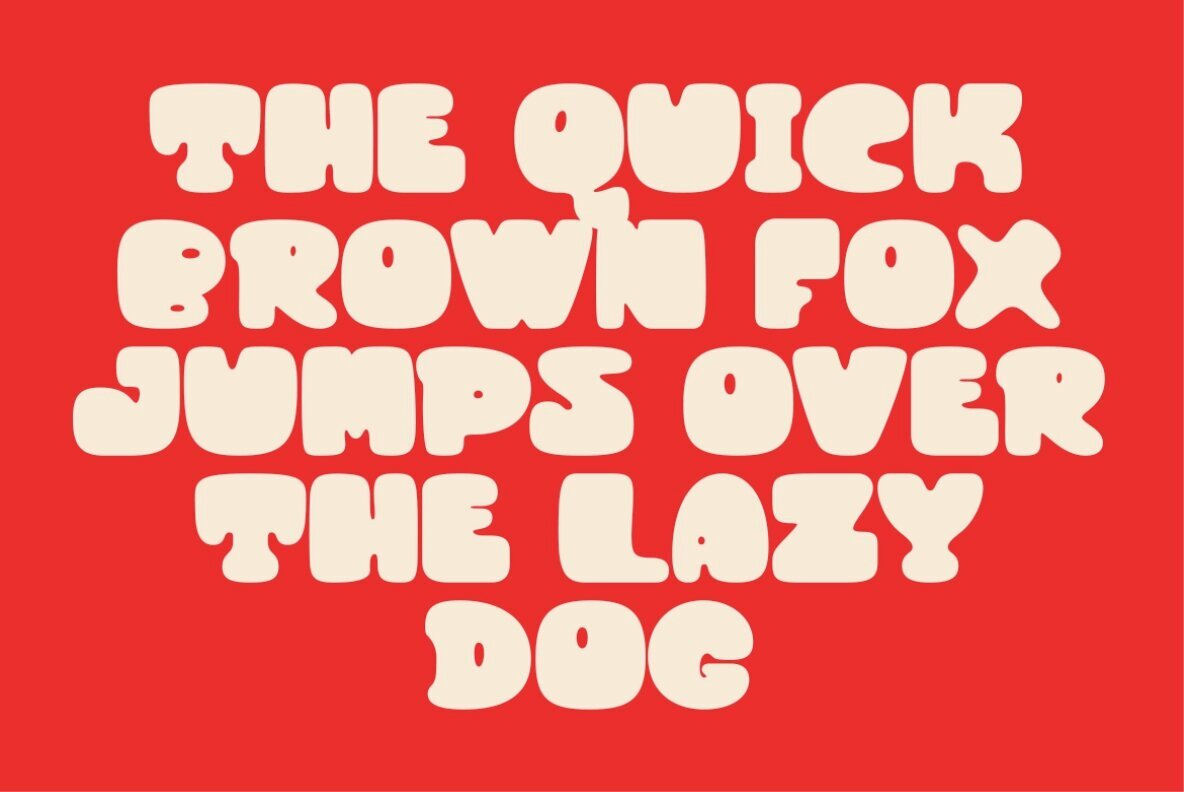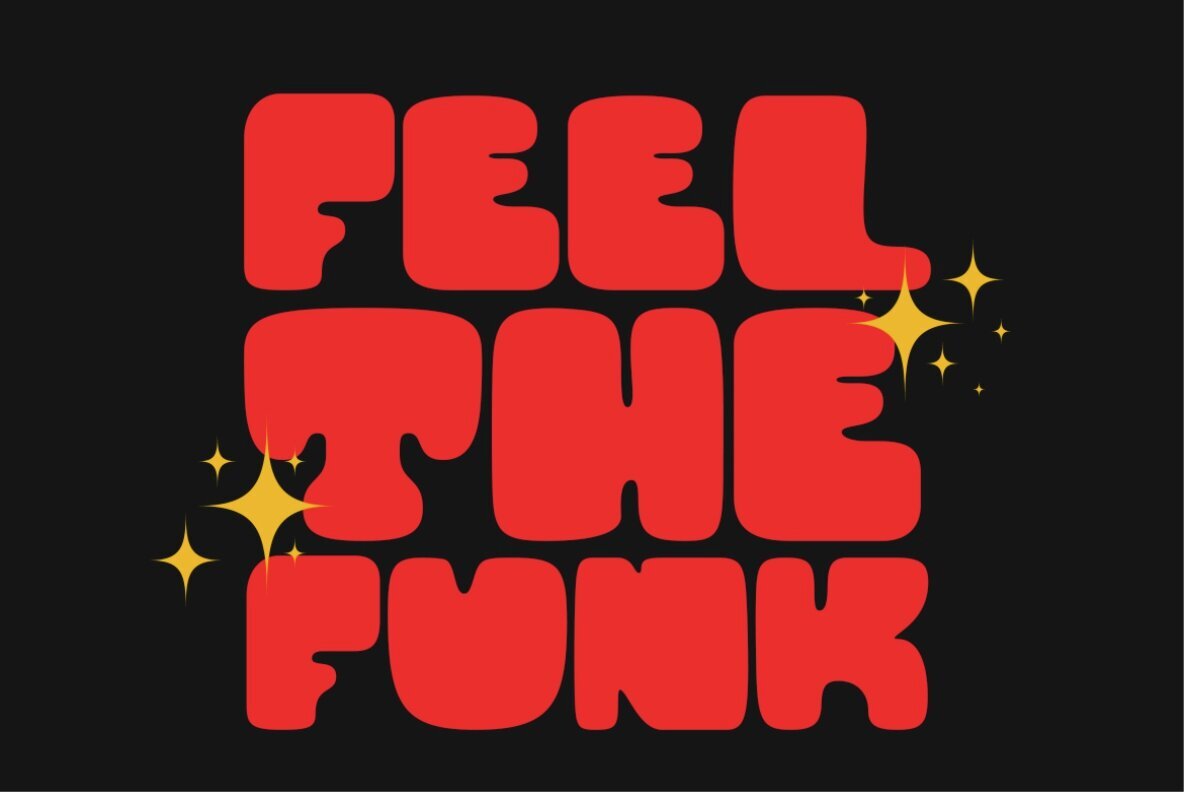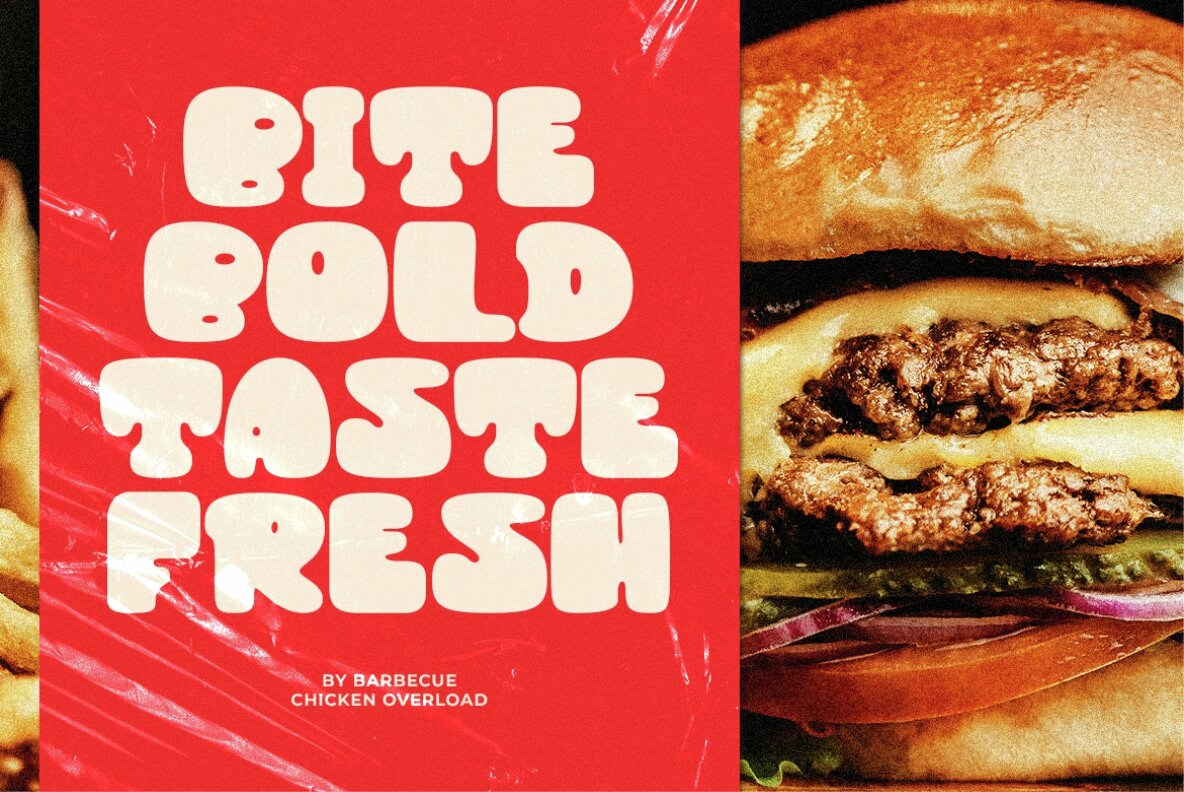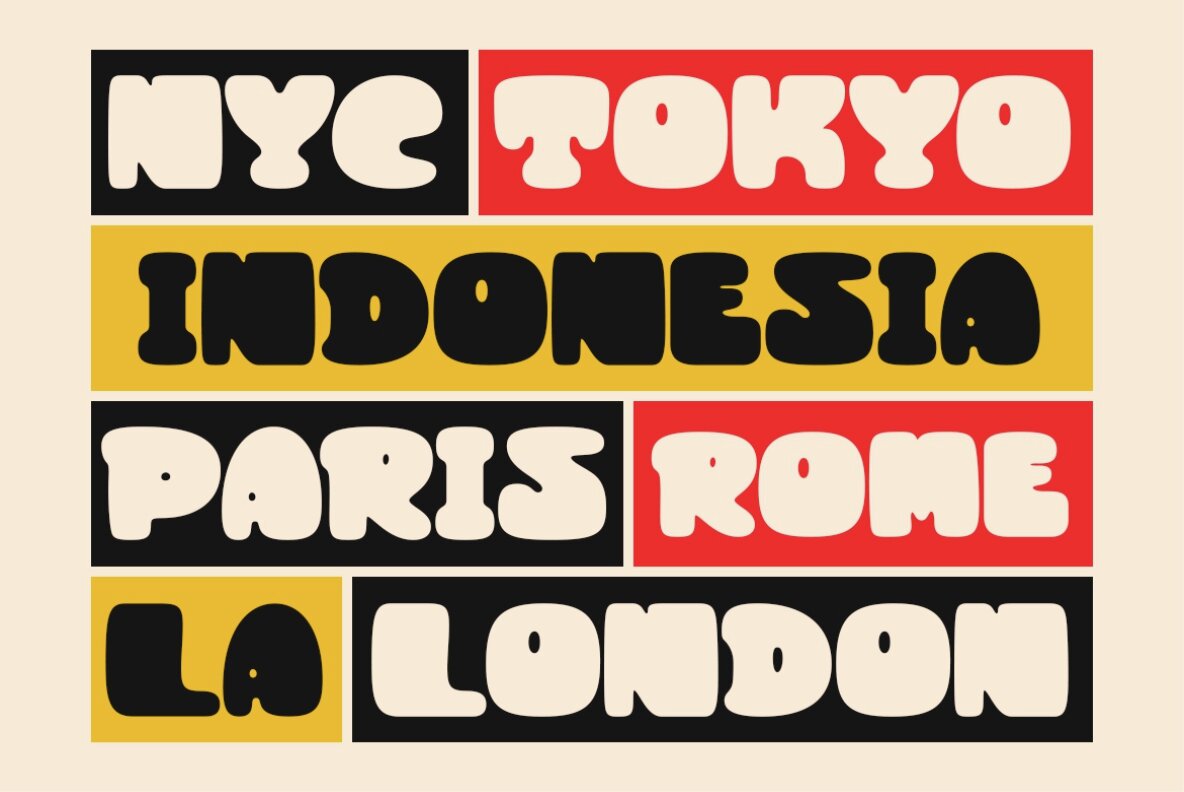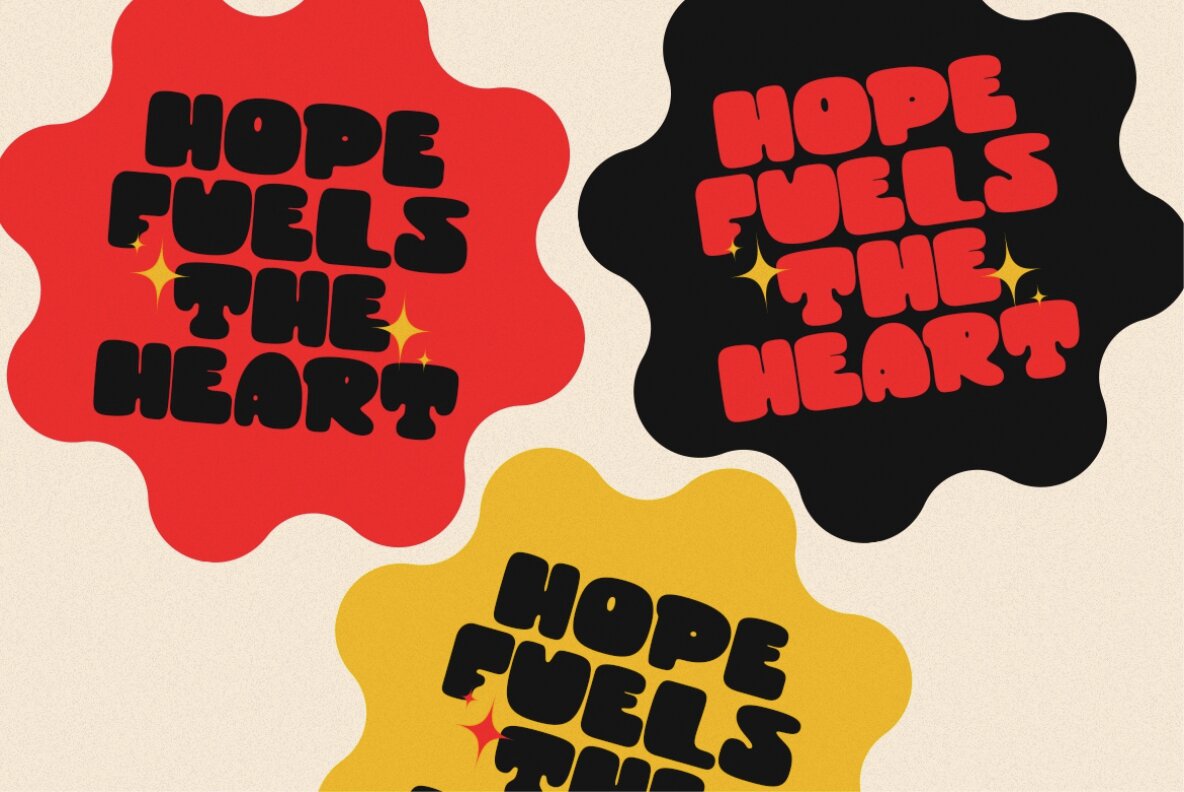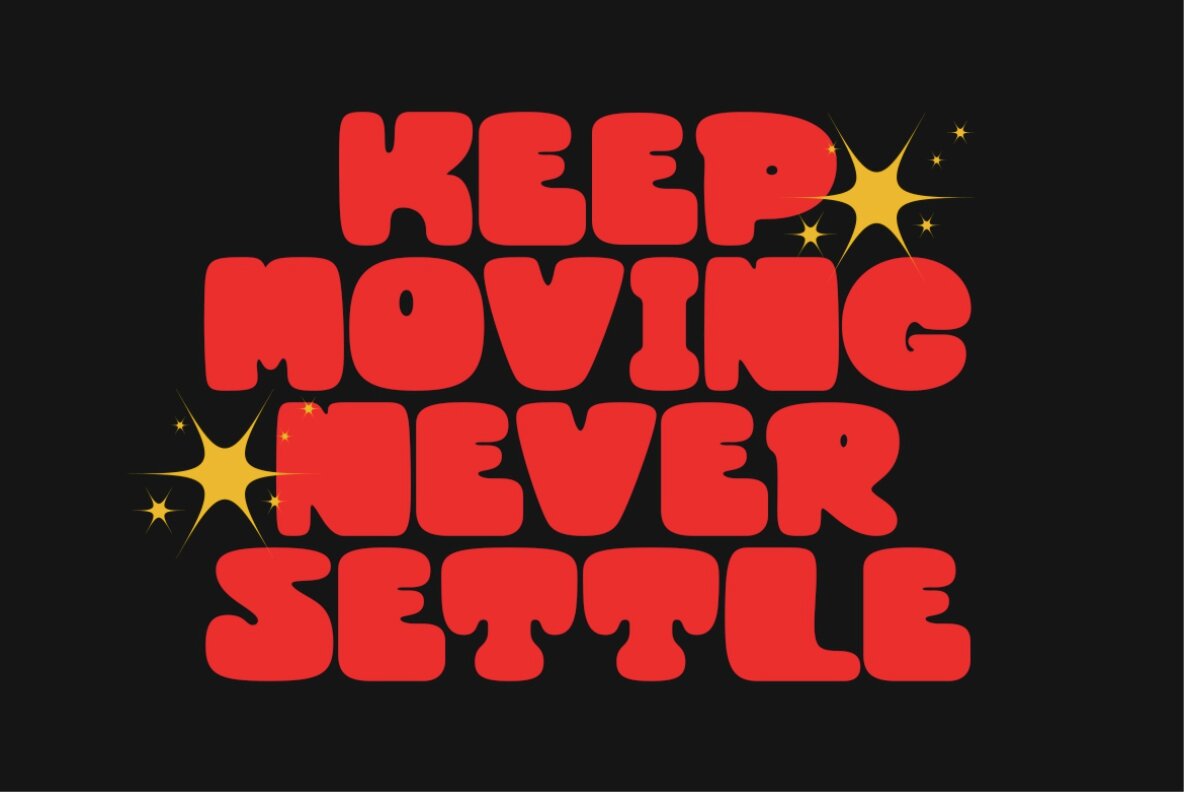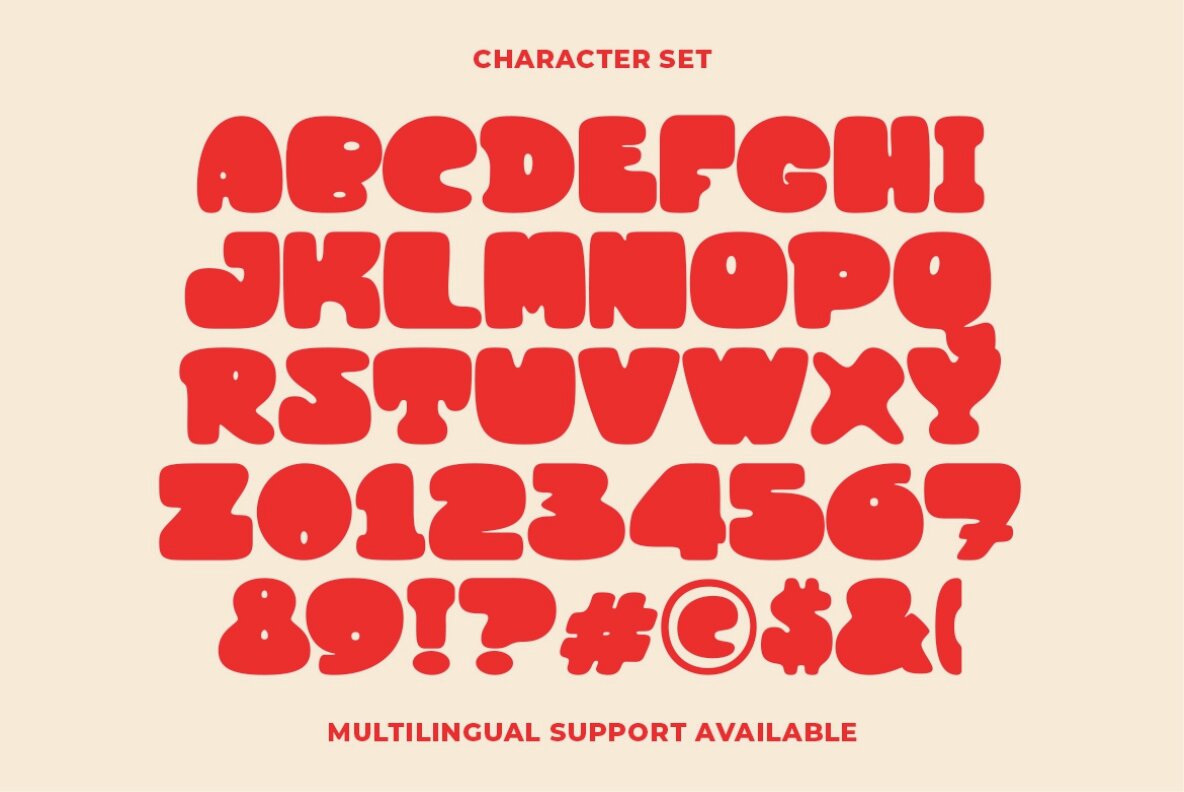
GF Fatstar Font
GF Fatstar
GF Fatstar is a bold display font characterized by its cheerful and unique design. Its striking appearance makes it perfect for projects requiring a strong visual impact, ensuring your work stands out and captures attention. This font adds a playful touch to designs, making it an excellent choice for creative endeavors.
Features of GF Fatstar include:
- Uppercase letters
- Lowercase letters
- Numerals
- Punctuation
- Multilingual support
Incorporate GF Fatstar into your work to inject energy and creativity, ensuring your projects leave a lasting impression.